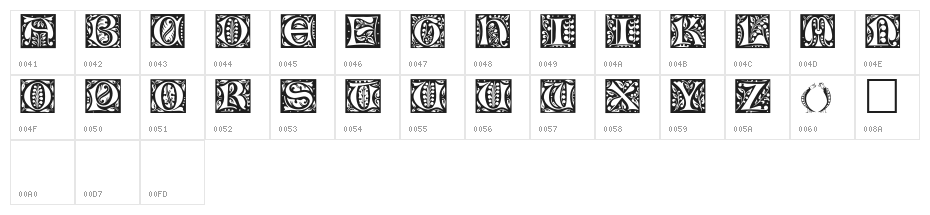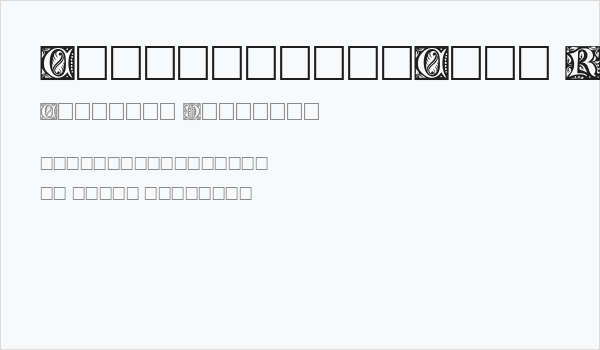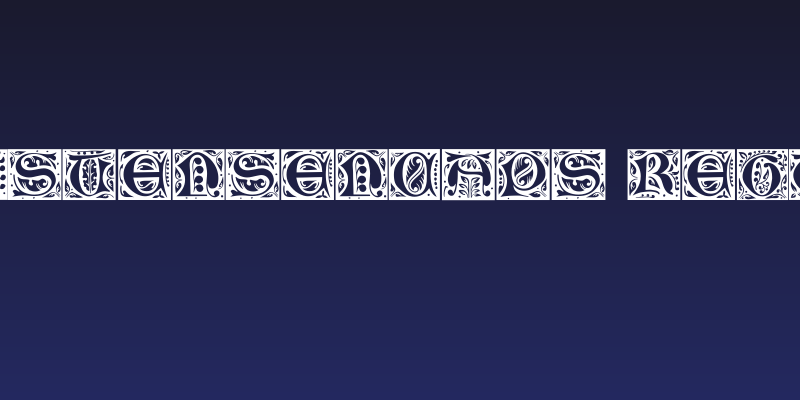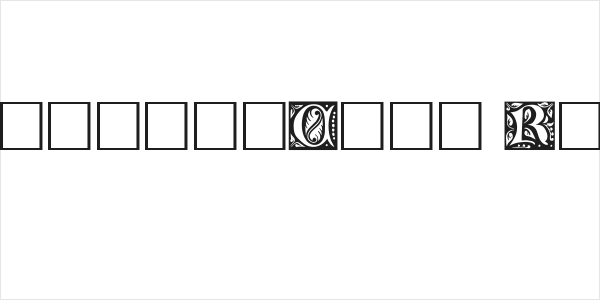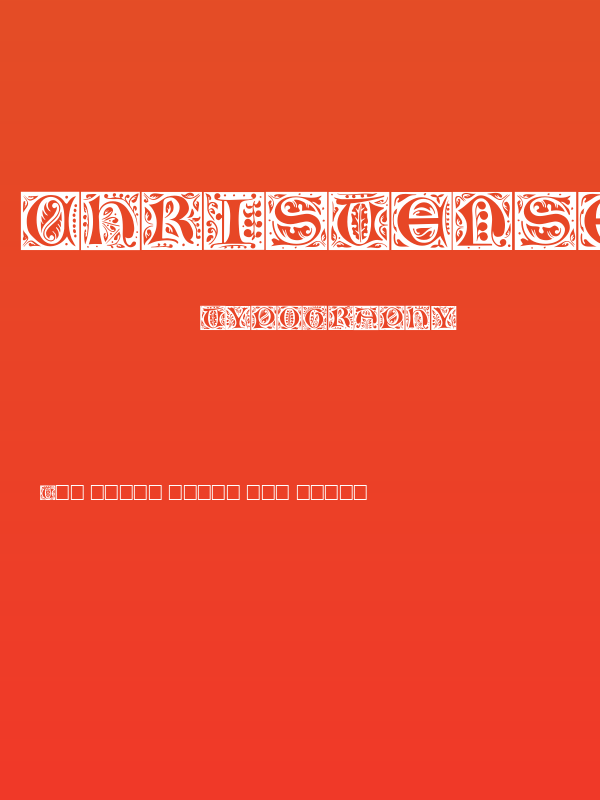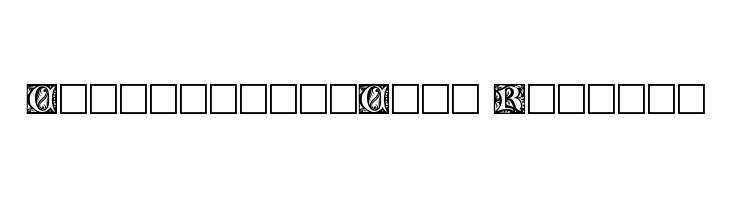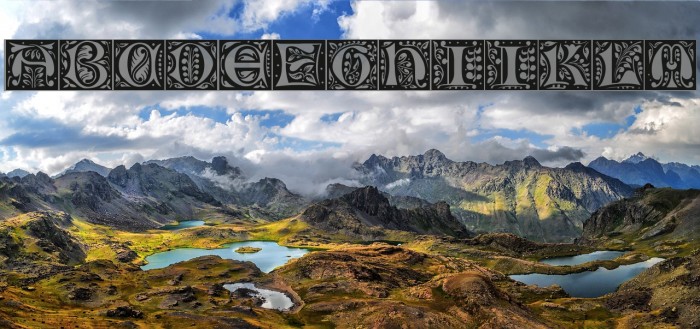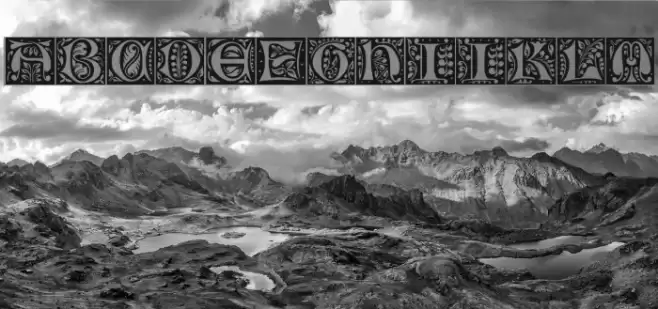
ChristensenCaps Regular Font
✎ Gothic
| Kategorien | Gothic |
| Gesamtstil | Vintage |
| Anwendungsfall | Logos, Headlines, Decorative purposes |
| Vorgeschlagene Projekte | Ideal for use in decorative projects such as invitations, posters, book covers, or any design requiring a touch of elegance and historical flair. |